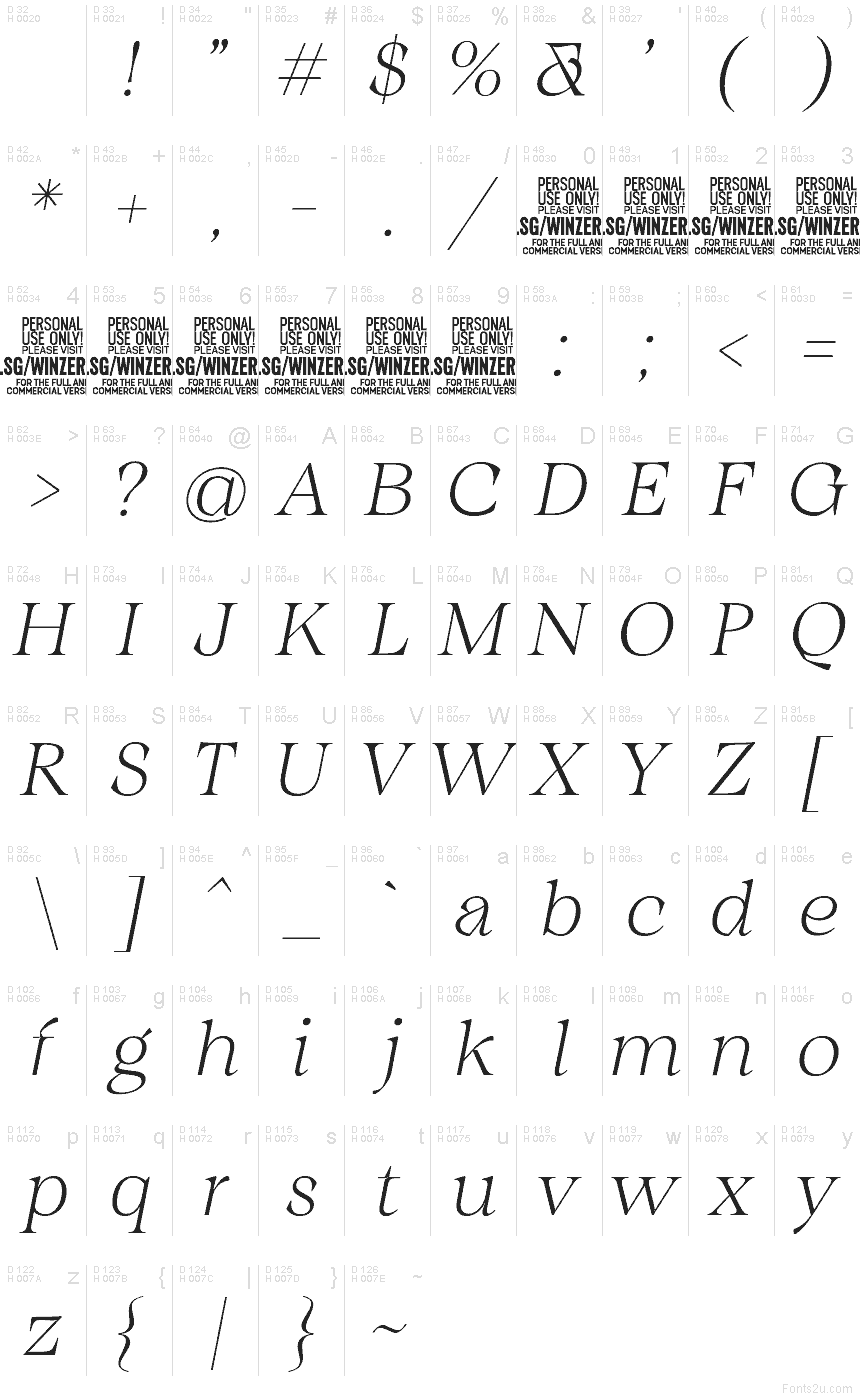
Winzer Serif PERSONAL USE Thin Italic
Winzer Serif Thin Italic font by Mans Greback is a free italic serif font that solves a familiar problem: you want elegance and emphasis without shouting. Its airy hairlines, crisp wedge serifs, and gentle calligraphic slant add movement while staying clean and legible. Part of the Winzer Serif family, it brings a wine-label sophistication—silky, precise, and beautifully restrained.
Using Winzer Serif Thin Italic, headlines and short phrases gain a refined whisper that still reads at a glance. It shines on boutique logos, editorial pull quotes, beauty packaging, wine menus, event invitations, and minimal posters. For balance, pair this free font with a calm grotesque sans and add a touch of letterspacing when set large to let those tapered strokes breathe.